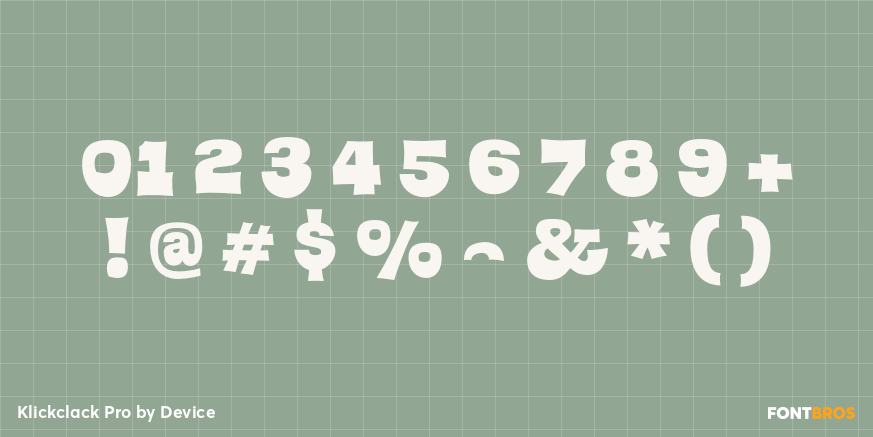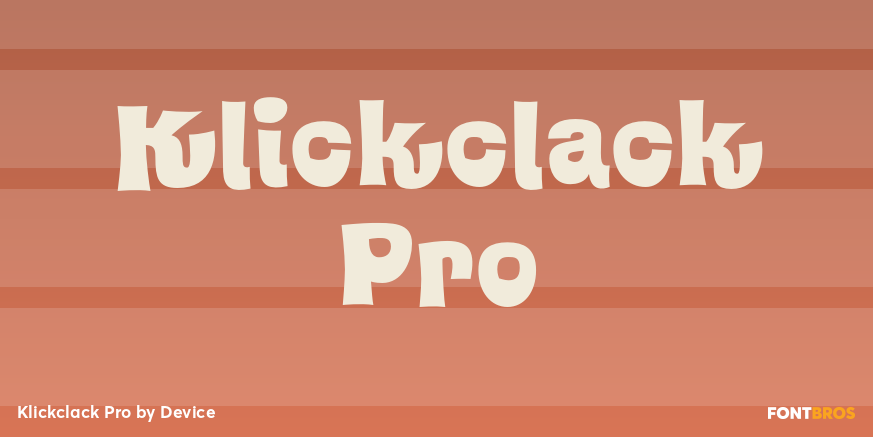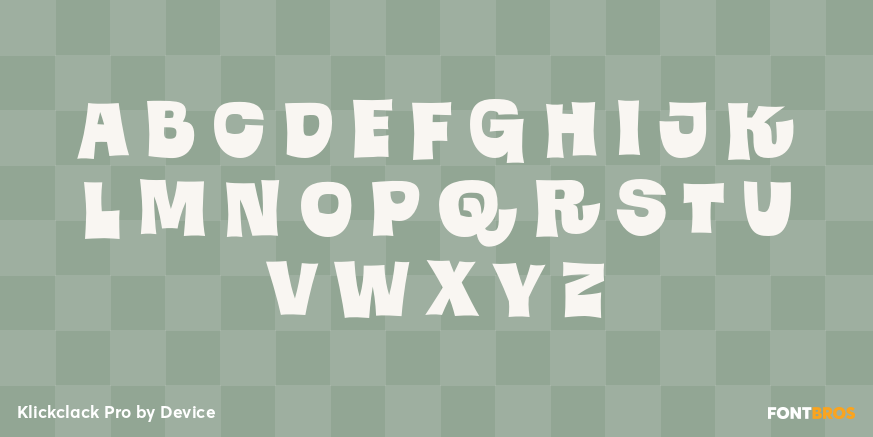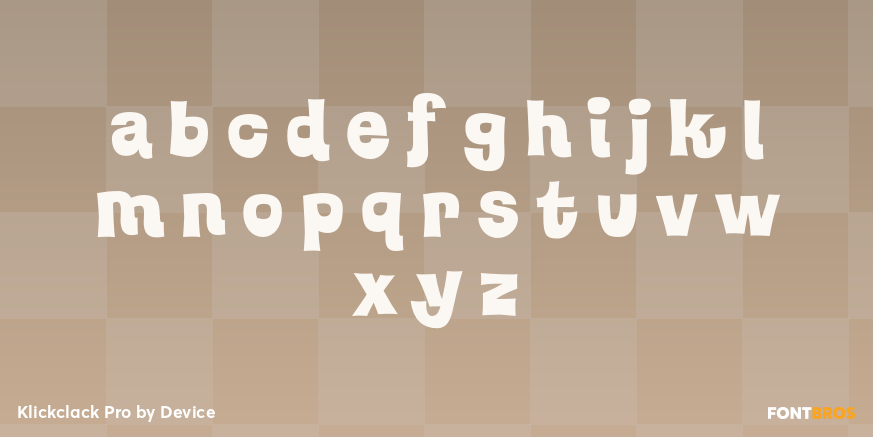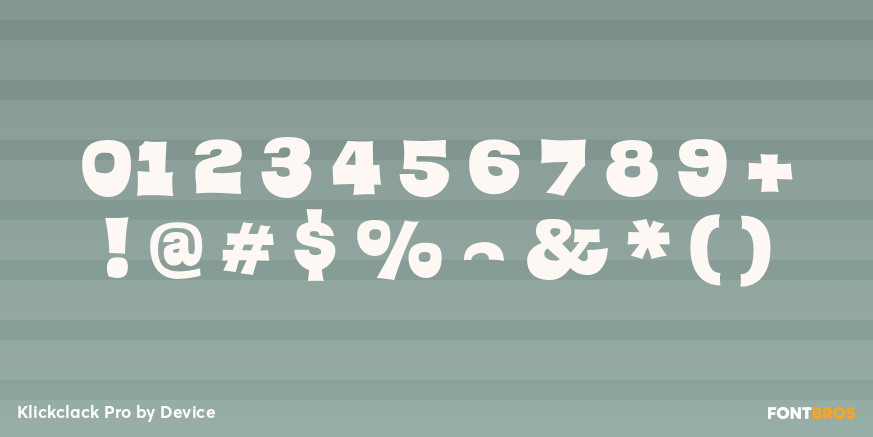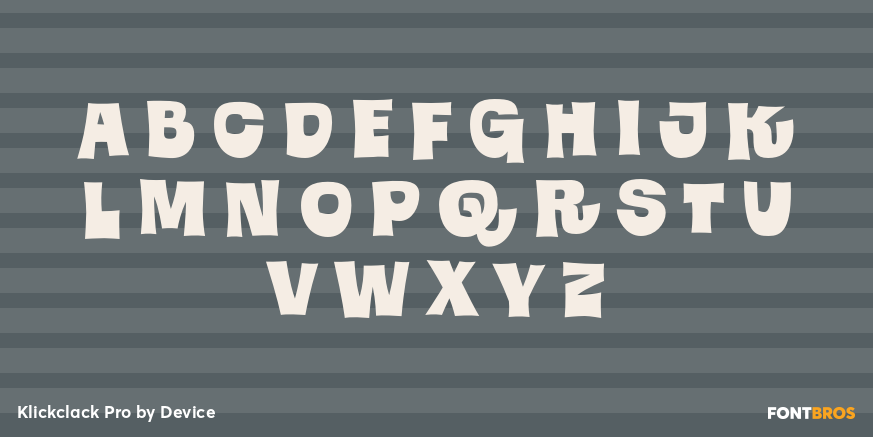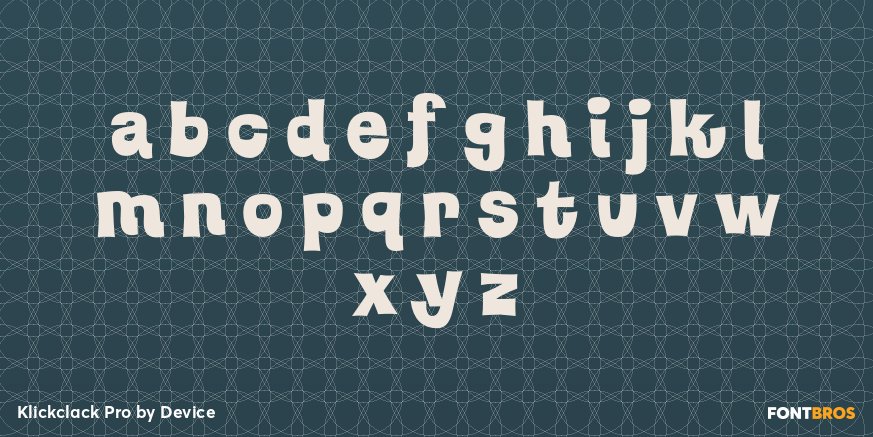
Klickclack Pro
Font Family by Device
A loose sans for all mod happenings, beatnik poetry readings, hootenanny hoedowns and kartoon kapers. Ya dig?
Also included is a flourished swash variation which is most definitely not intended for caps-only use.